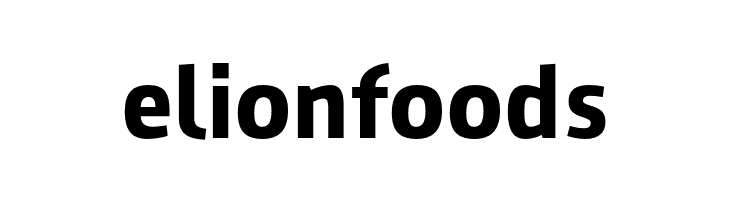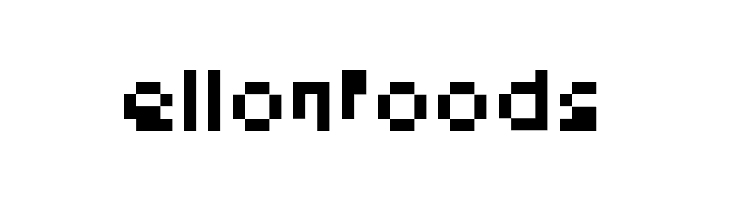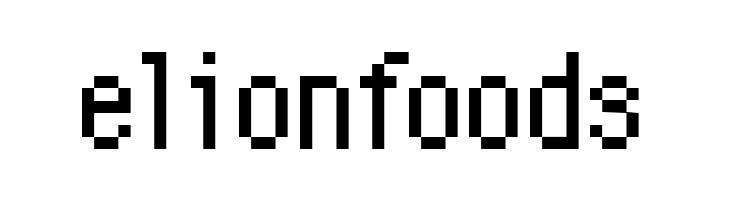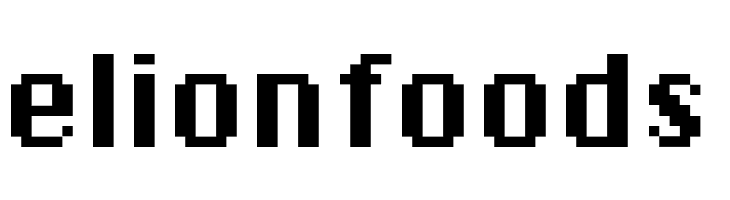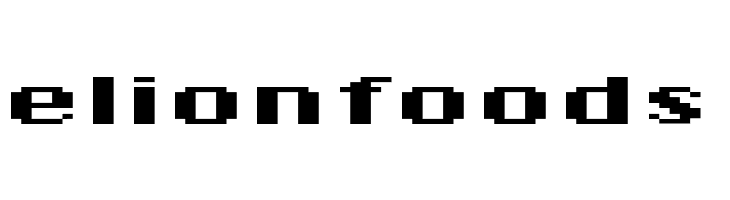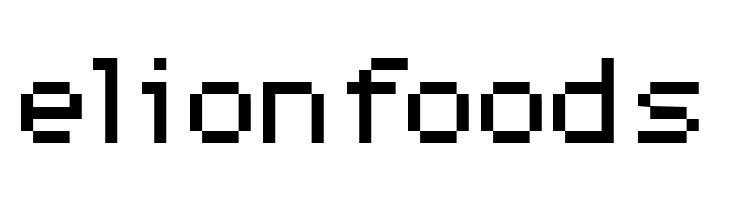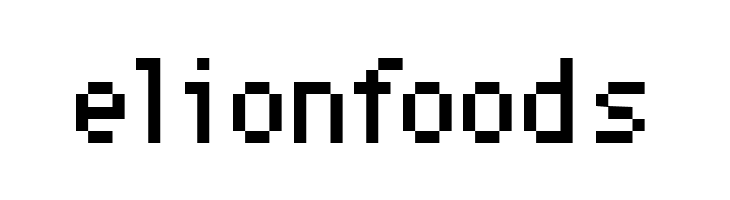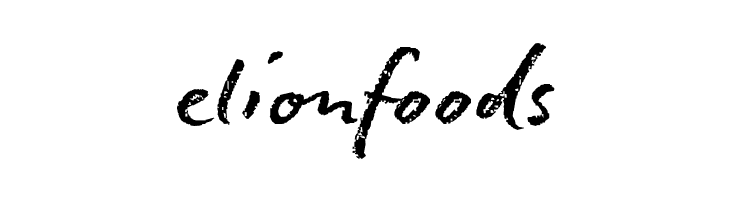
A modern, italic sans-serif font with clean lines and balanced proportions.
A modern, clean sans-serif typeface with balanced stroke width and clear readability.
A pixelated, retro-style font inspired by early digital typography.
A pixelated, monospaced font with a retro digital aesthetic.
A pixelated, retro-style font with a blocky, digital appearance.
A pixelated, retro-style font with a digital, blocky appearance.
A textured, handwritten script font with a dynamic and expressive style.